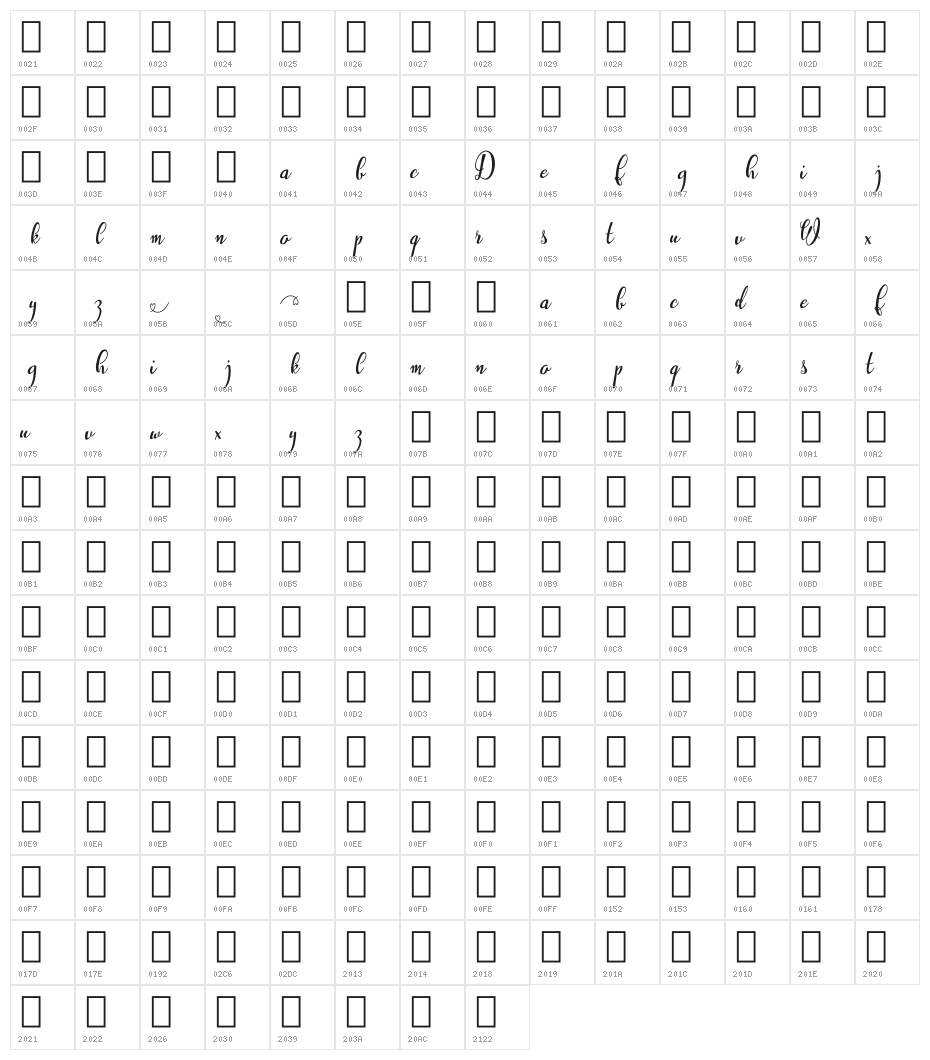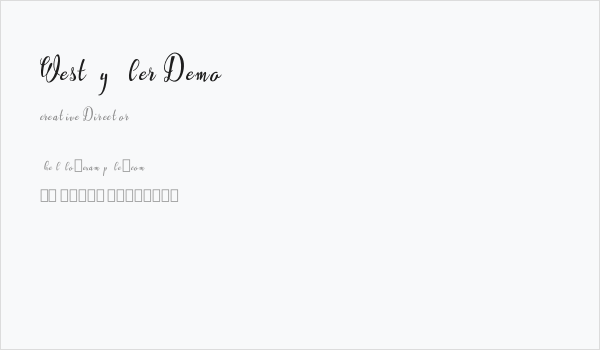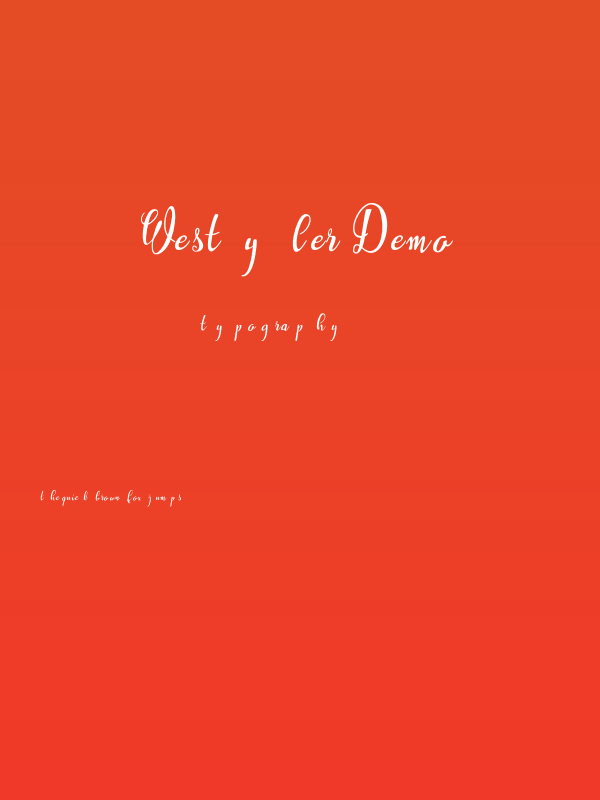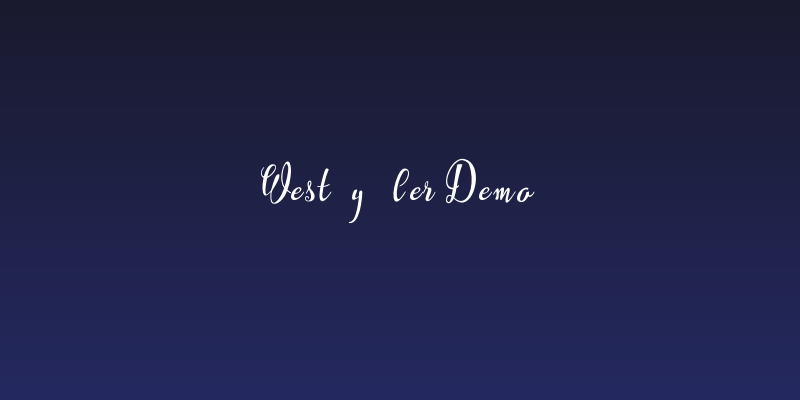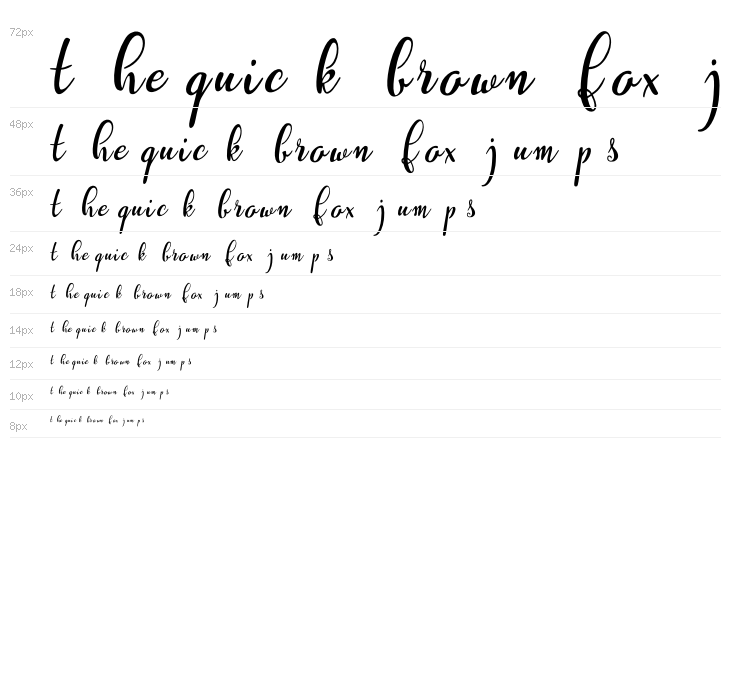
Westyler Demo Font
Westyler Demo Description
This font features a flowing, cursive style that exudes elegance and sophistication. The letters are interconnected, creating a seamless and fluid appearance. The strokes are smooth and rounded, with a consistent thickness that maintains readability while adding a touch of grace. The uppercase letters are slightly larger and more ornate, providing a striking contrast to the more understated lowercase characters. This font is perfect for projects that require a personal, handwritten touch, such as invitations, greeting cards, or branding materials. Its decorative nature makes it ideal for use in designs that aim to convey warmth and personality.
| Proposed Projects | Ideal for wedding invitations, greeting cards, personal branding, and decorative signage. |